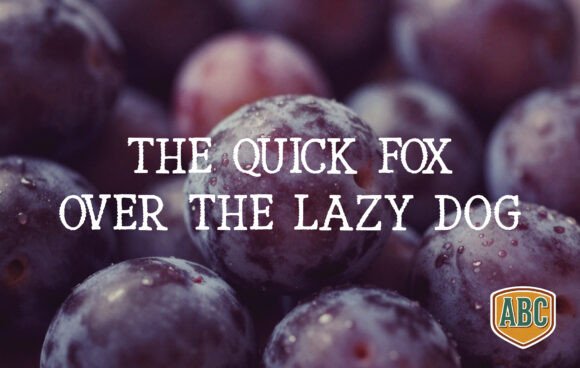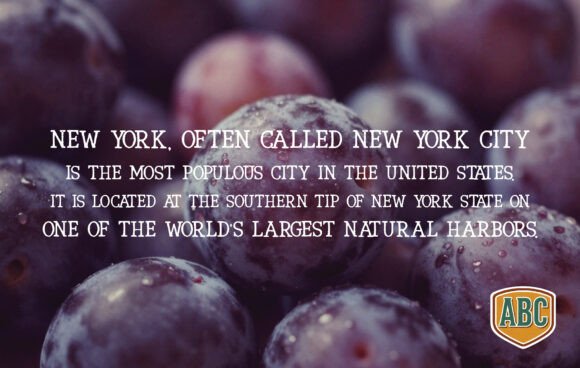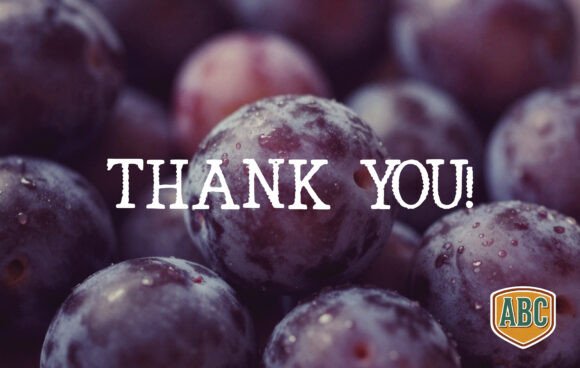
Introduction to Plum Font
Give your projects a touch of raw, artisanal character with Plum.
This bold display serif stands out with its distinctive distressed edges and weathered texture, mimicking the look of traditional ink-press printing or hand-carved woodblocks Despite its rugged, โtoothedโ outlines, Plum maintains a sophisticated structure and excellent legibility.
Key Features of Plum Font
Why Choose Plum Font?